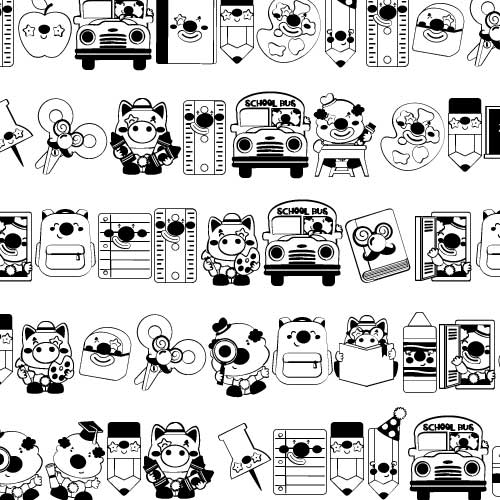
DB Clowning Around - At School - DB
This fun doodlebat font features 26 clowns and carnival themed school imagery. Perfect for cards, crafts, parties, gifts, planner stickers, classrooms, teachers, scrap book pages, cardmaking and more!